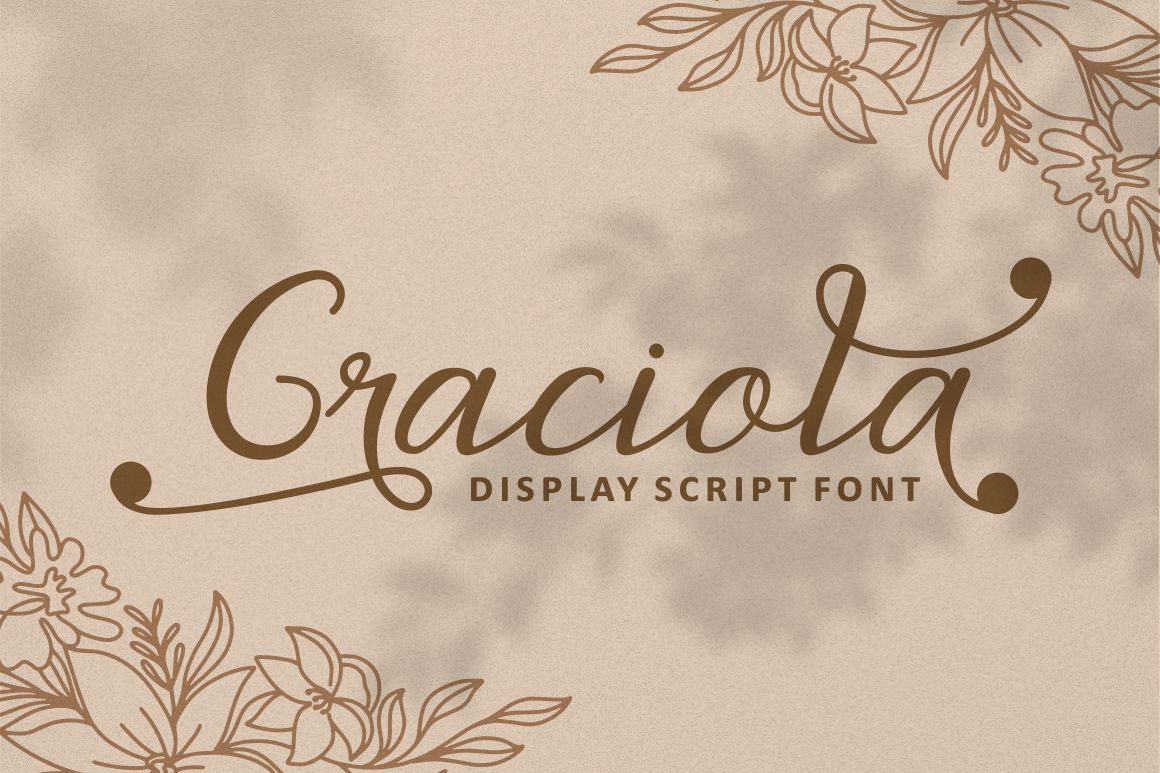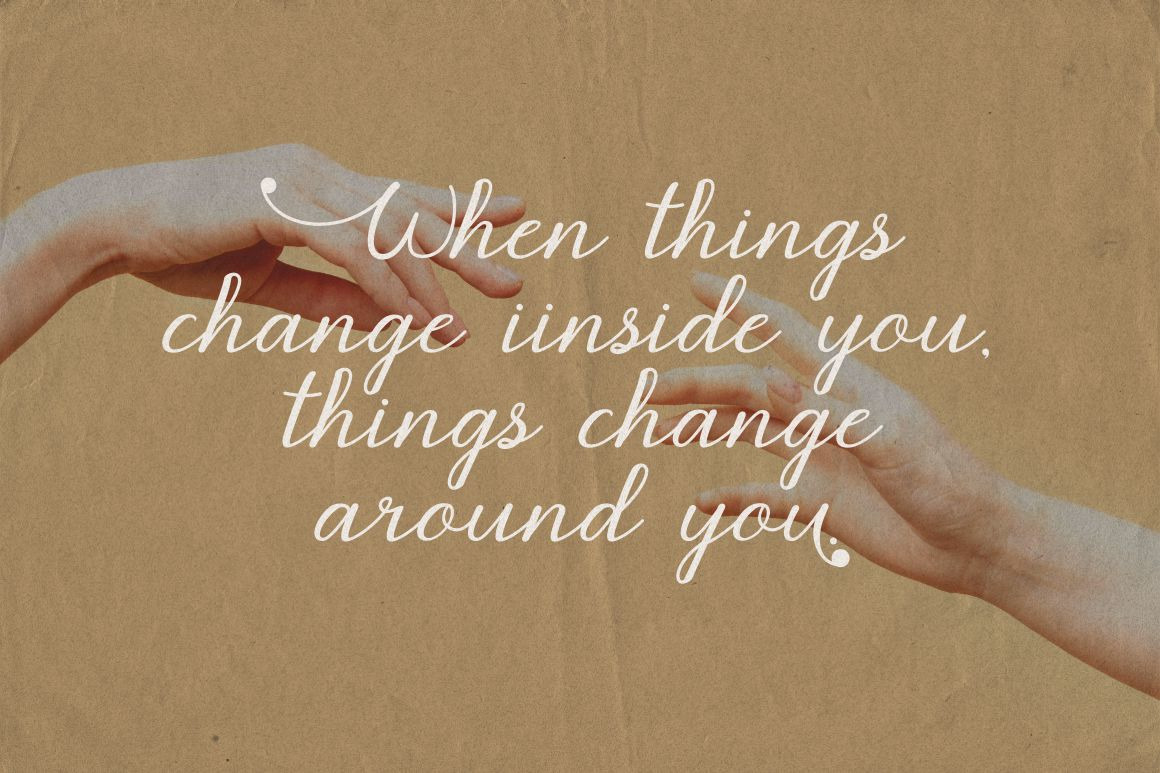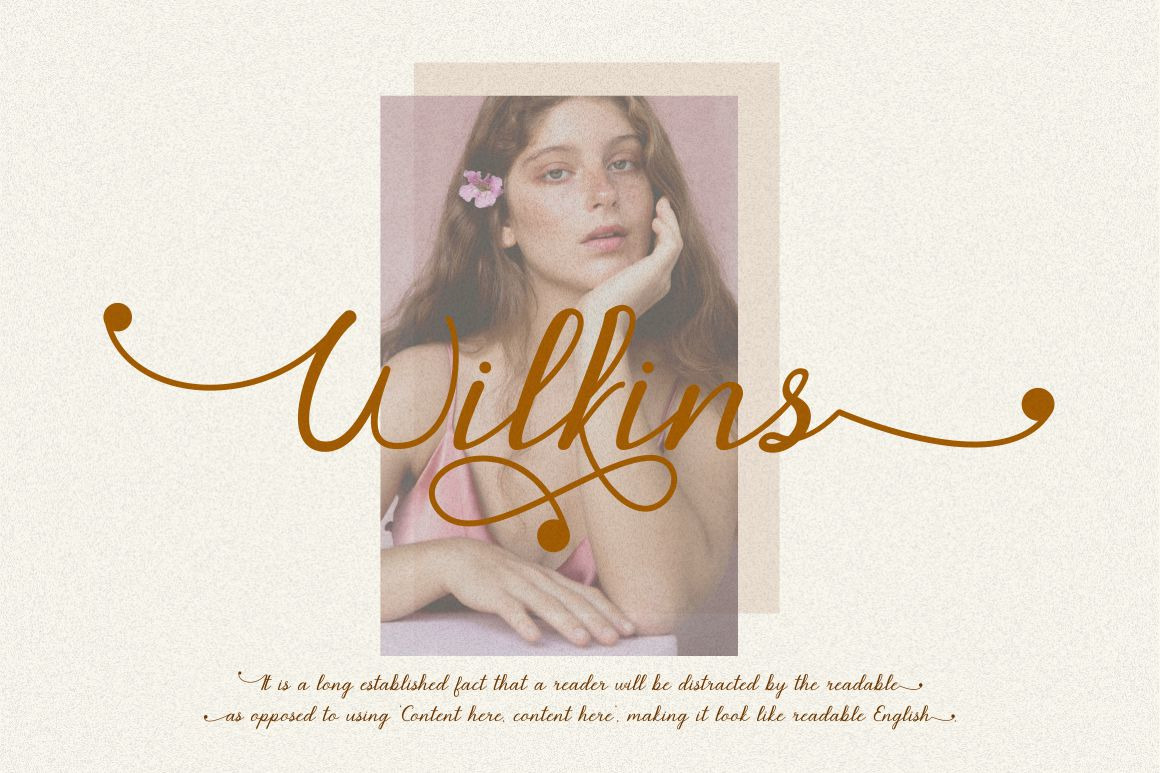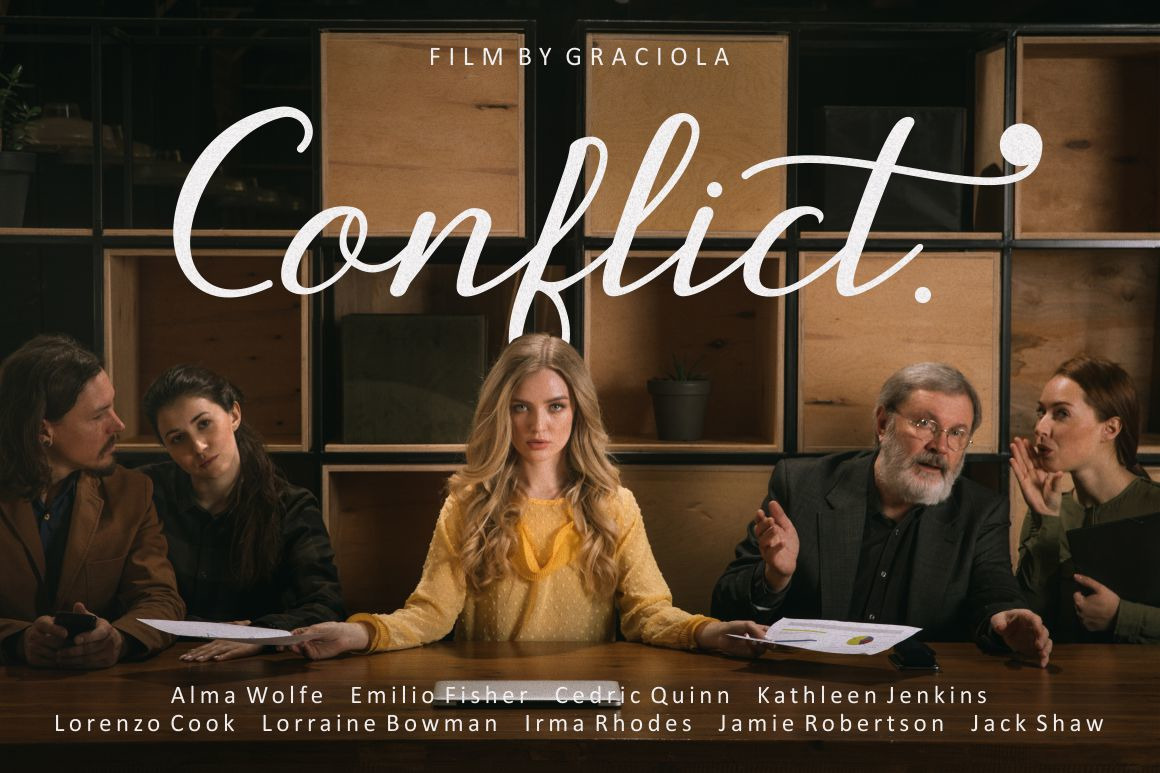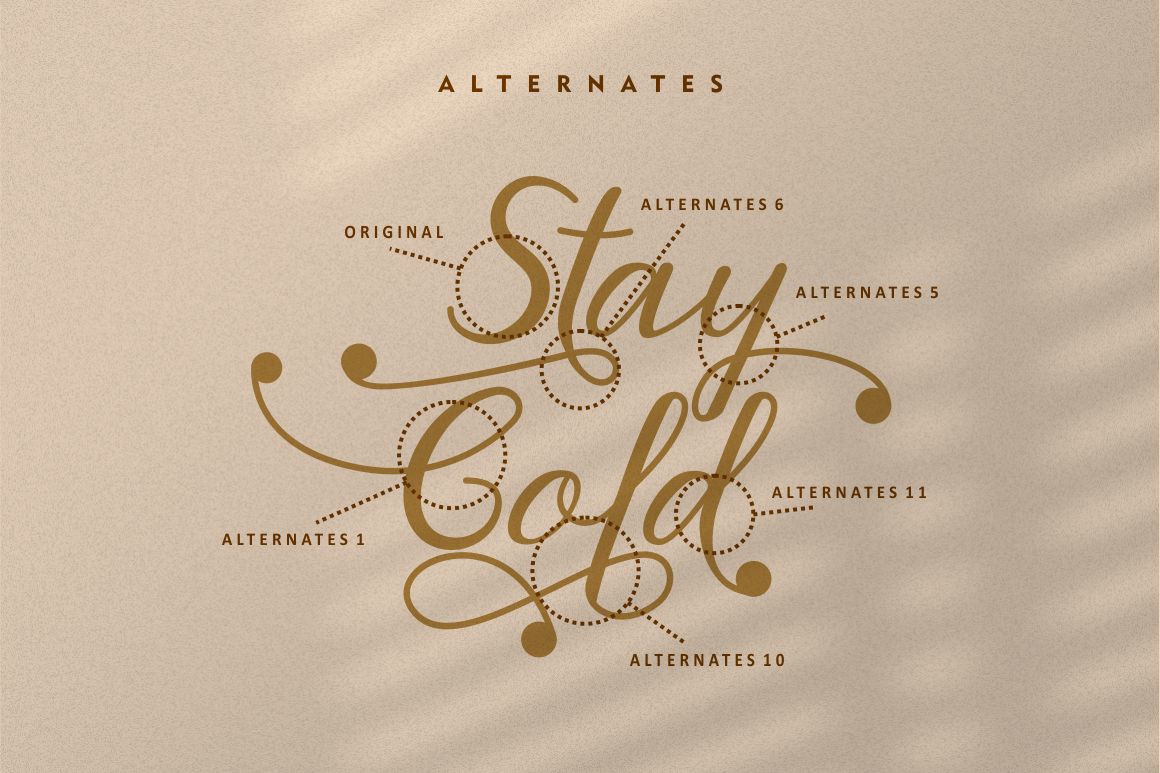
Graciola - Display Script Font
Graciola - Display Script Font. Graciola is a luxurious and elegant calligraphy font with magical pressure
Graciola is perfect for elegant logos, upscale packaging, wedding stationery, websites, and any other projects requiring a handwritten and luxurious touch. A wide range of swashes and alternates are included so that you can give your logo or name a custom, hand-calligraphy look.
The alternative characters were divided into several Open Type features such as Swash, Stylistic Sets, Stylistic Alternates, Contextual Alternates, and Ligature. The Open Type features can be accessed by using Open Type savvy programs such as Adobe Illustrator, Adobe InDesign, Adobe Photoshop Corel Draw X version, And Microsoft Word. This font is also support multi language.
Uppercase
Lowercase
Opentype (Alternates And Ligatures)
Number, Punctuation And Symbols
Multilanguage Support.